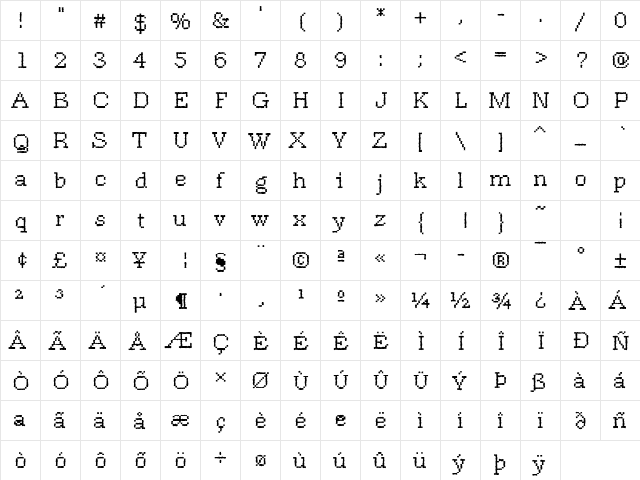
DTCRoughM17 Regular Font Preview
DTCRoughM17 Regular
DTCRoughM17 Regular Font Details
Design Context for DTCRoughM17 Typeface
DTCRoughM17 embraces imperfection — its rough, textured character adds raw authenticity to designs that want to feel lived-in and unconventional.
A strong fit for alternative music projects, graffiti-adjacent design, and anything that deliberately resists polish.
Pro Tip: Use DTCRoughM17 at larger sizes where the texture and irregularity of each letterform can be clearly seen — it loses its character at small sizes.